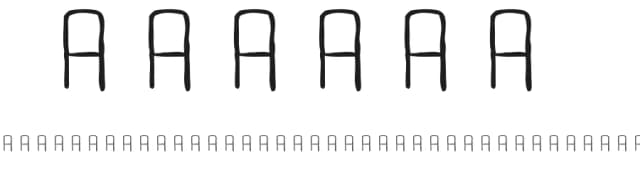
About Little Principessa Font
Little Principessa Font is a decorative font that shines as a display or heading face. Pair it with a clean sans-serif or serif font for body text β the contrast creates a clear hierarchy while the two styles stay balanced and easy to read.
Little Principessa Font
by Marianetta